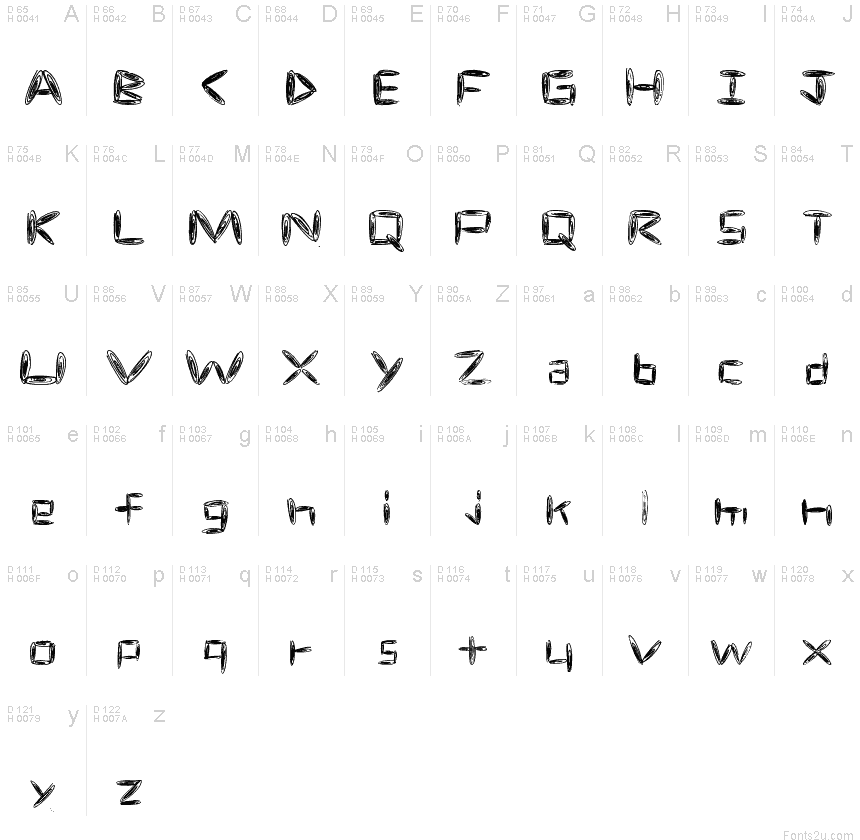
Spacetime by Max Infeld of Xerographer Foundry is a free graffiti script with hollow, looping strokes that make each letter resemble bent wire or inflated tubing. Its uneven proportions, doubled contours, and abrupt pinched joins give the lettering a restless, improvised shape, with round forms shifting between broad ovals and narrow vertical marks.
Designers working in experimental music and streetwear will find an immediate match here. The font is especially convincing on album covers, event posters, and apparel graphics, where its tangled outlines can become part of the artwork rather than a neutral caption, and its strongest role is a title that feels drawn directly into the image.